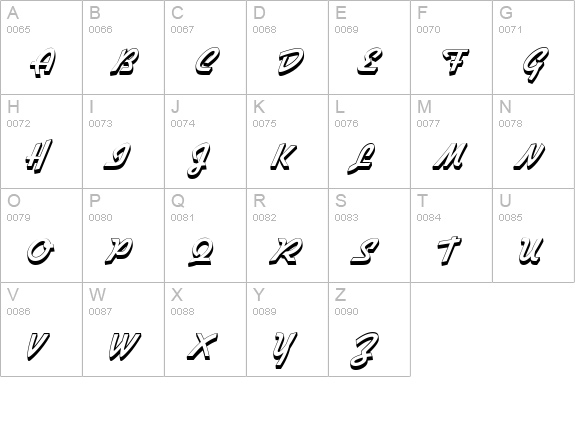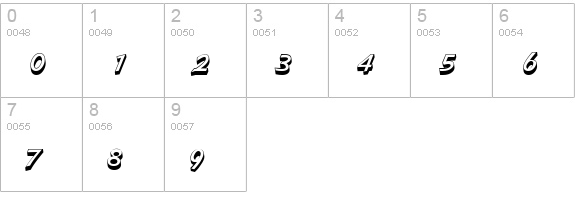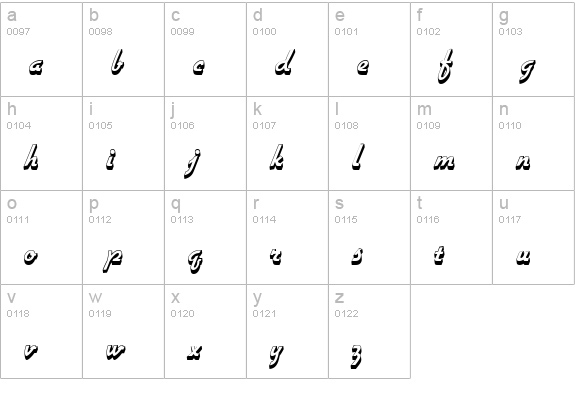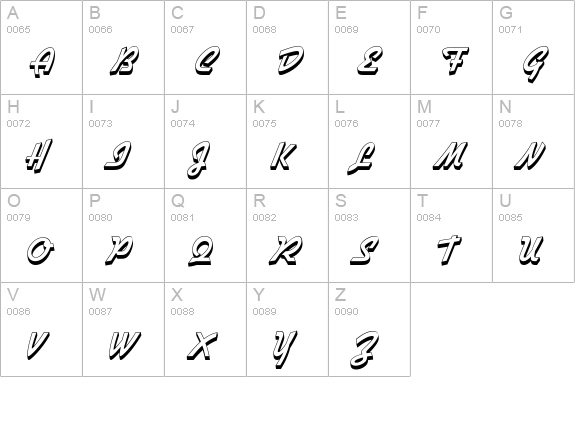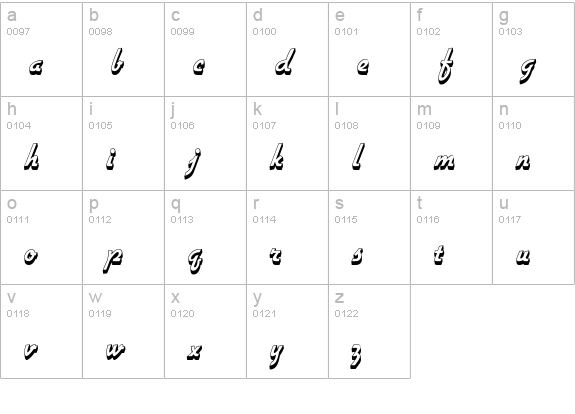
Giulio-Shaded-Regular is the standard, neutral variant in the Giulio typeface family \xE2\x80\x94 well suited to general body text, paragraphs, and standard typographic work.
The Giulio-Shaded-Regular font is a unique and eye-catching typeface that adds a touch of elegance to any design. Its stylish shading gives it a modern and dynamic look that is perfect for a variety of projects. This free font is designed to make a statement and stand out from the crowd. Whether you're creating a logo, poster, or website, Giulio-Shaded-Regular is sure to make a lasting impression. You can freely download the Giulio-Shaded-Regular font at FontsMarket.com. It's easy to access and use, making it a convenient choice for designers looking to add a creative flair to their work. Don't miss out on this opportunity to enhance your design projects with this stunning and versatile font.